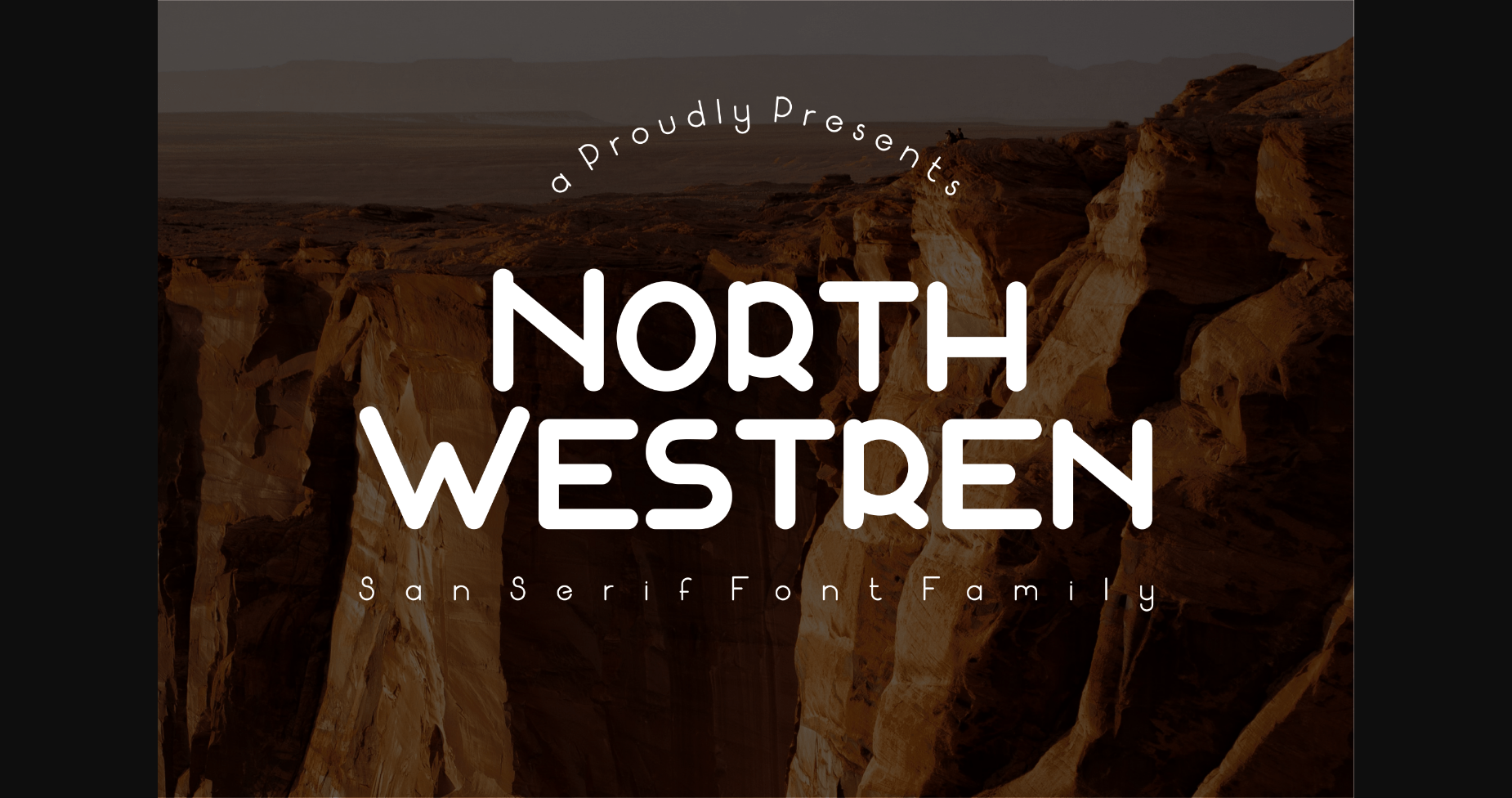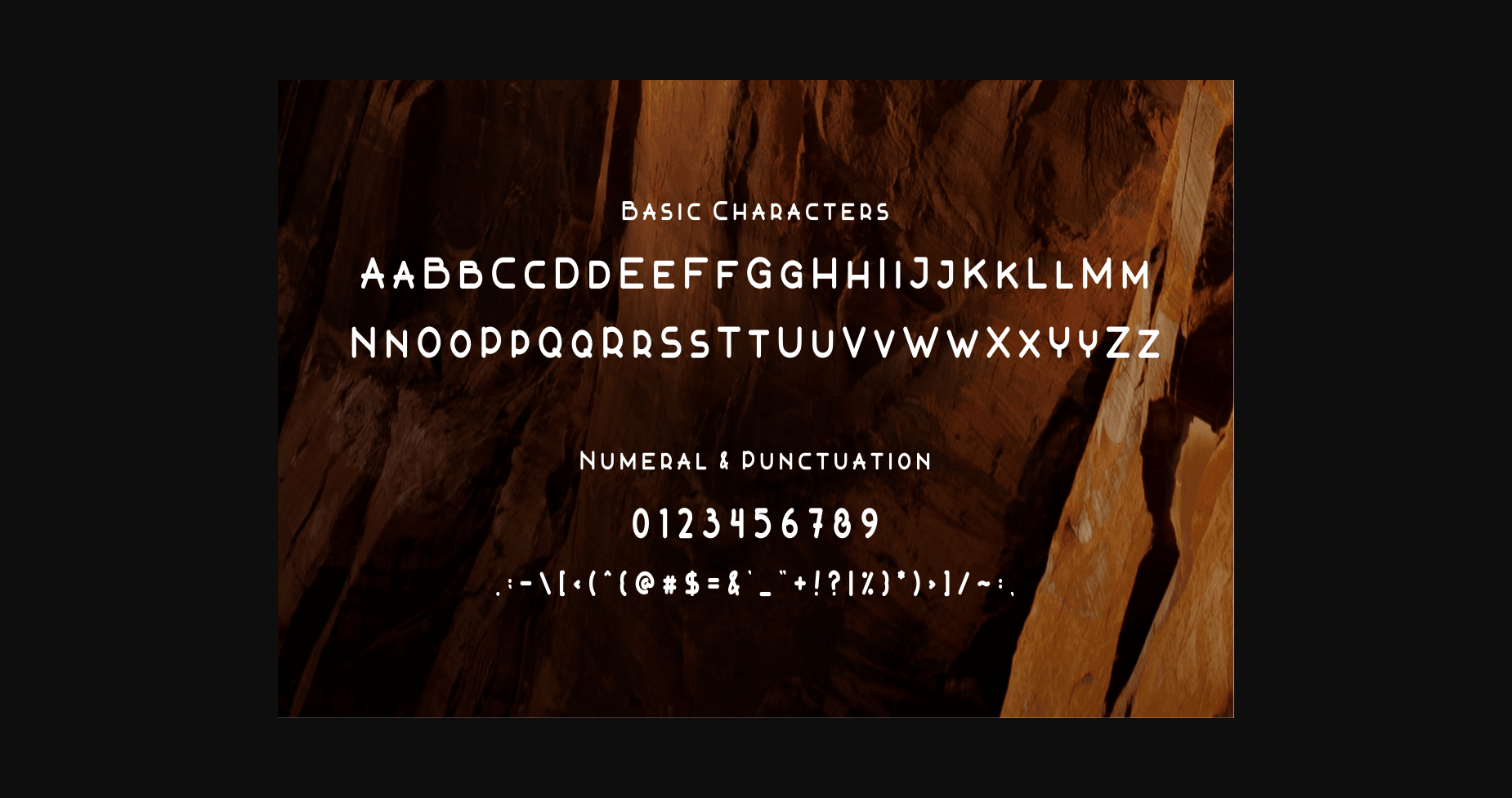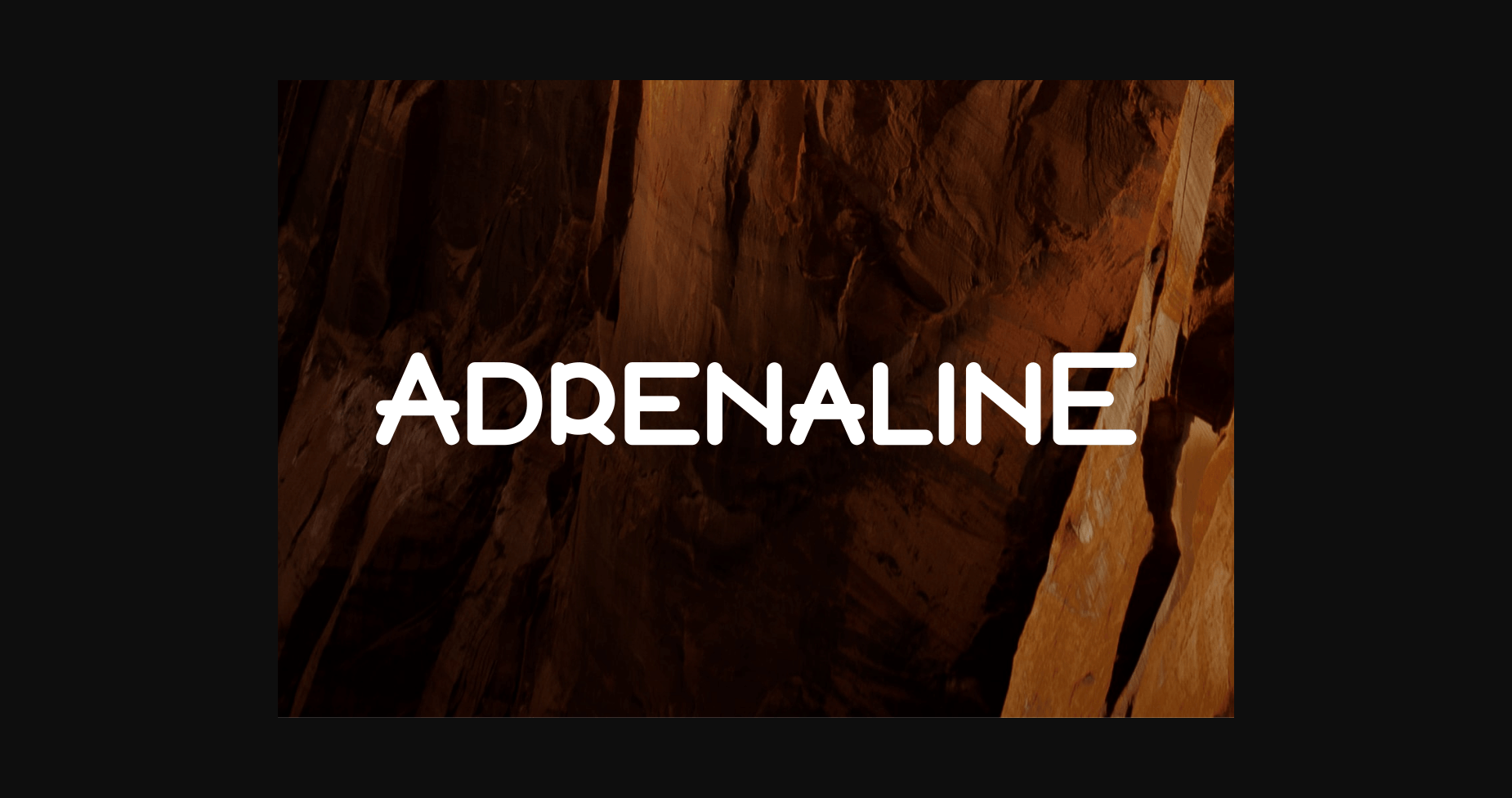
North Westren has a classy but modern look. It’s a great font for fashion, signatures, album covers, logos, branding, magazines, social media, & advertisements, or anything that needs a touch of elegance.